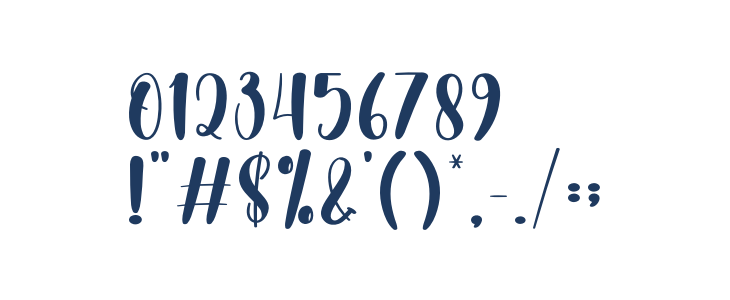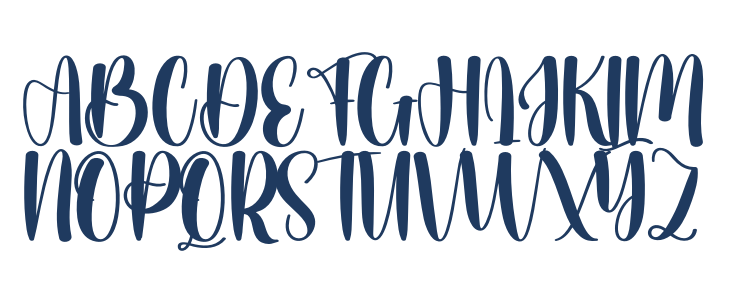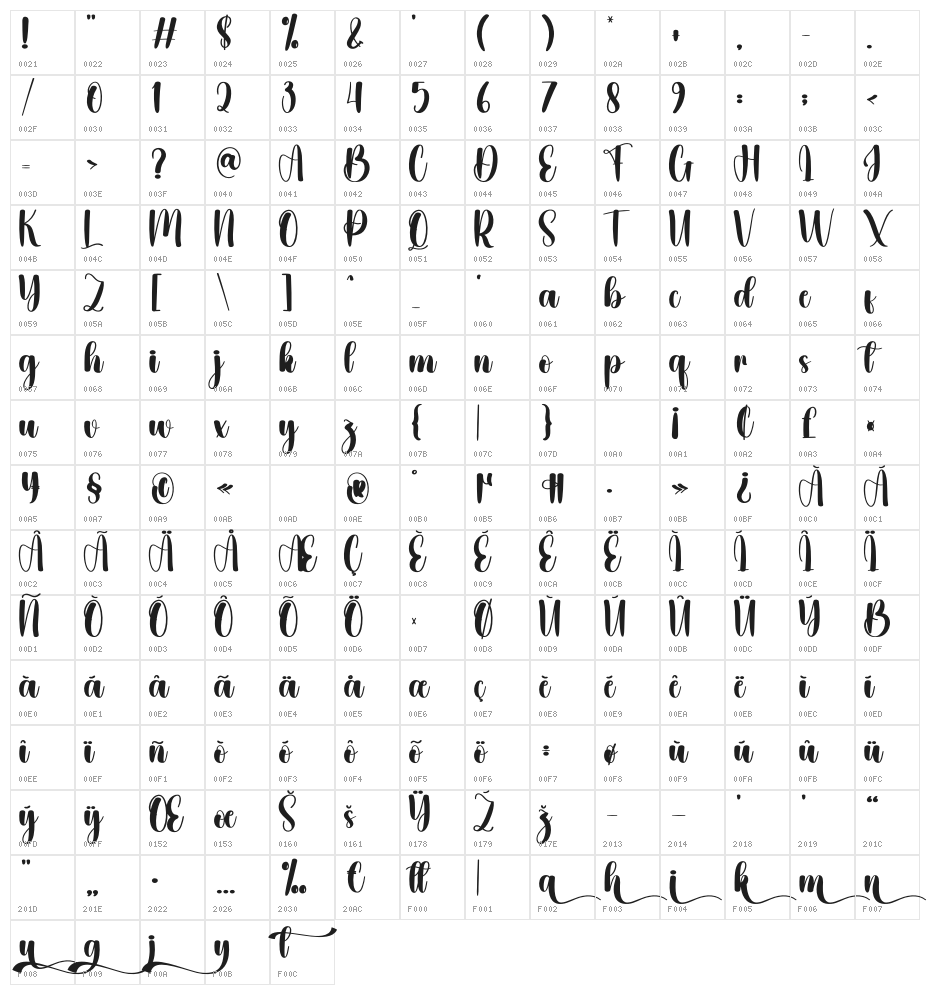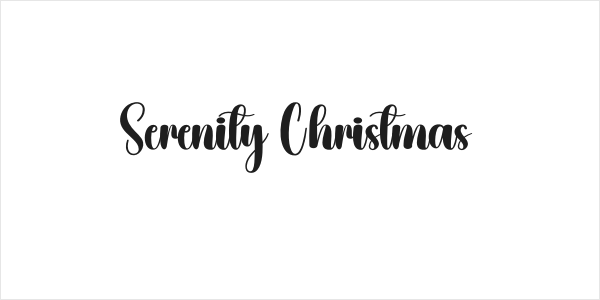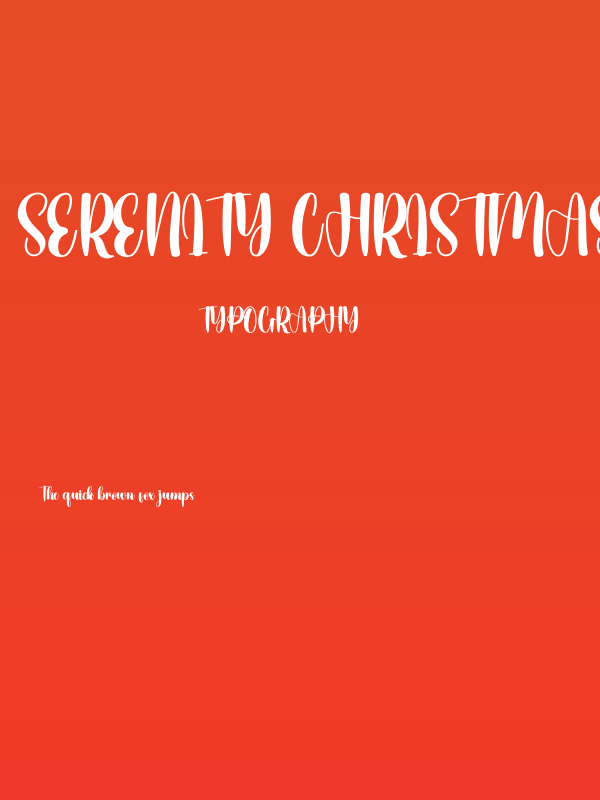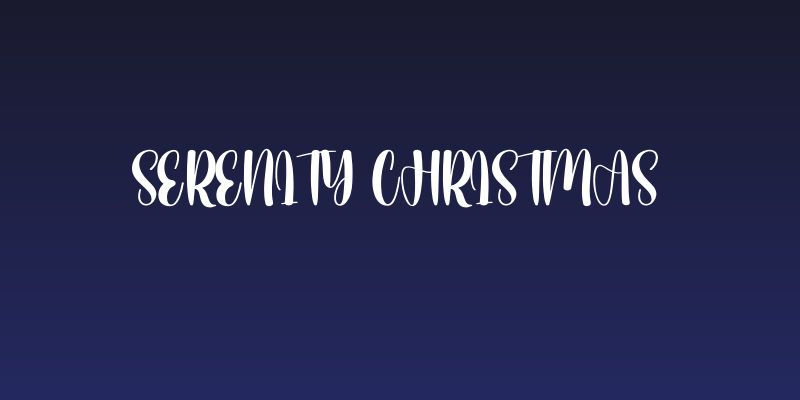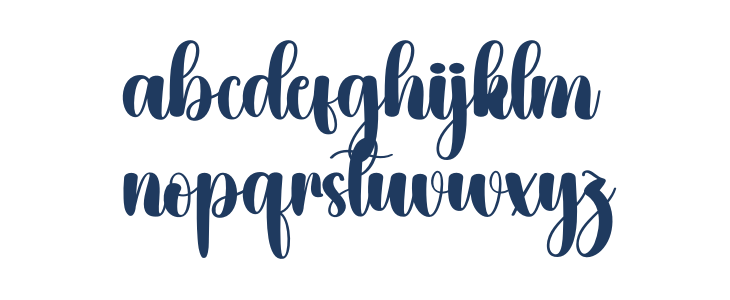
Serenity Christmas Font
Serenity Christmas Description
A bold, flowing script font with a handwritten, brush-pen style. The characters are connected with expressive loops and swashes, featuring high contrast between thick and thin strokes. The overall appearance is playful and decorative, with a festive and elegant flair.
| Overall Style | Decorative, Festive, Handwritten |
| Use Case | Headlines, Logos, Invitations, Greeting cards |
| Proposed Projects | Holiday cards, invitations, branding, social media graphics, festive packaging. |